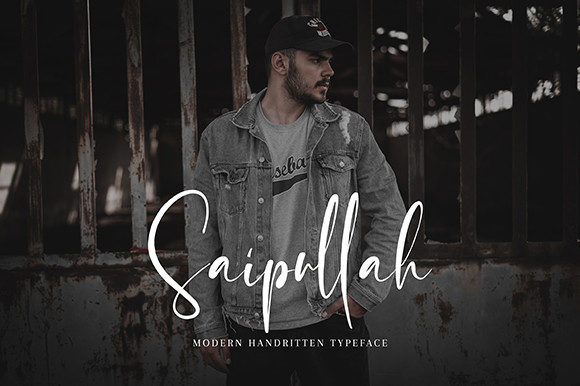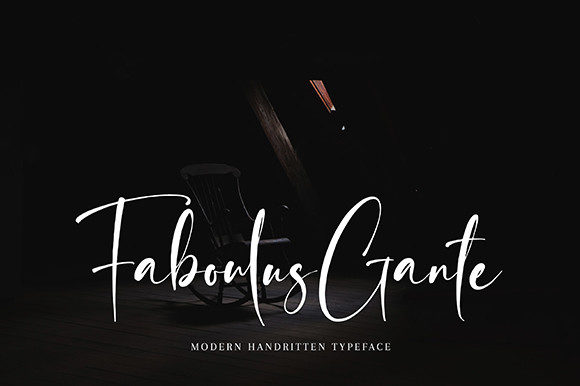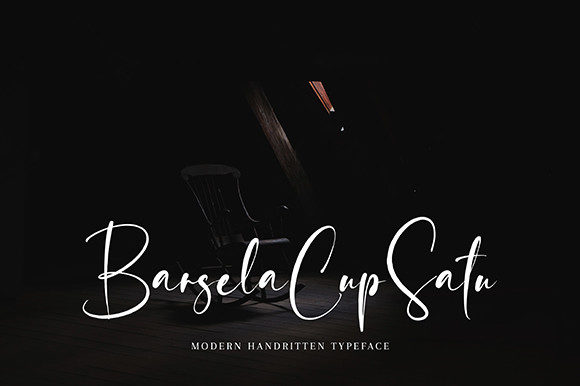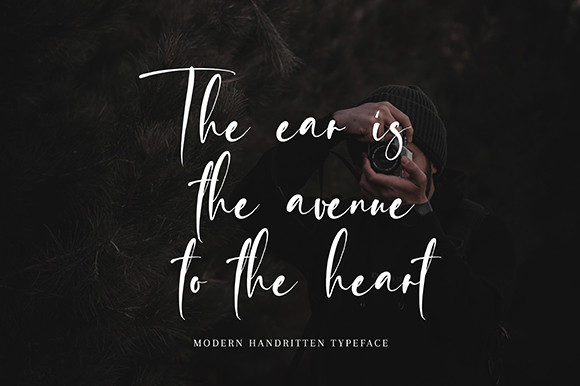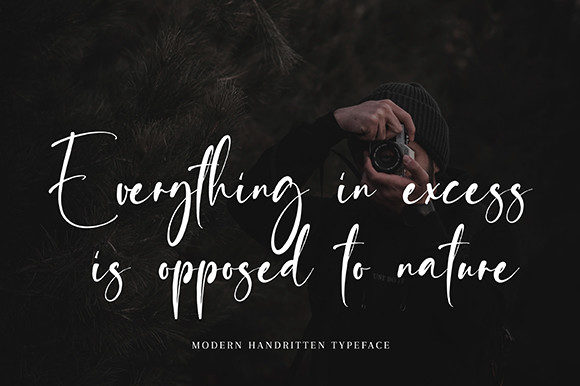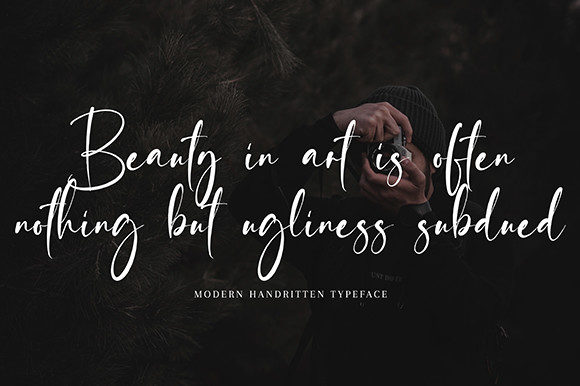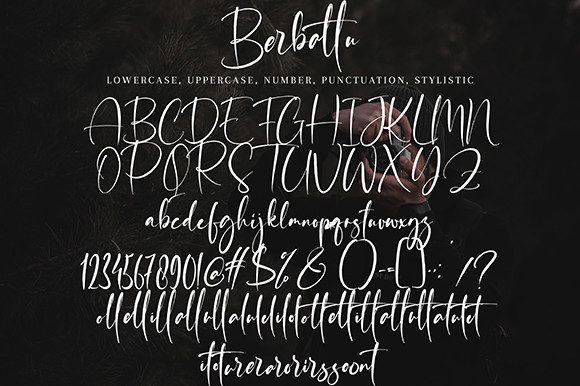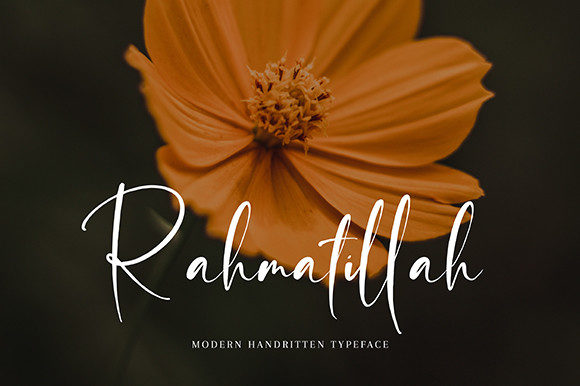
Berbattu Font
About Berbattu Font
Berbattu is a magical script font carefully created with a touch of elegance. This font is PUA encoded which means you can access all of the amazing glyphs and ligatures with ease!